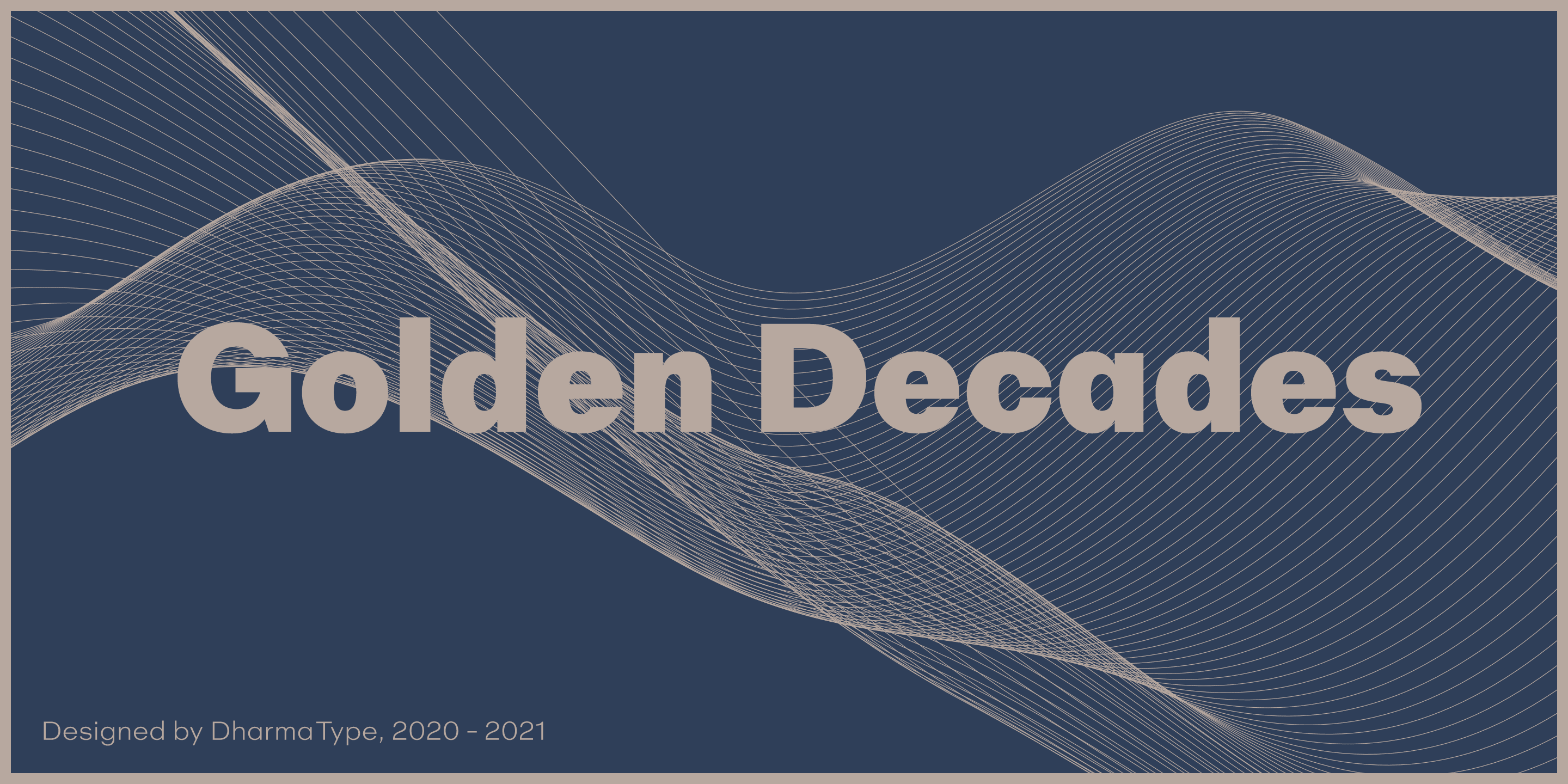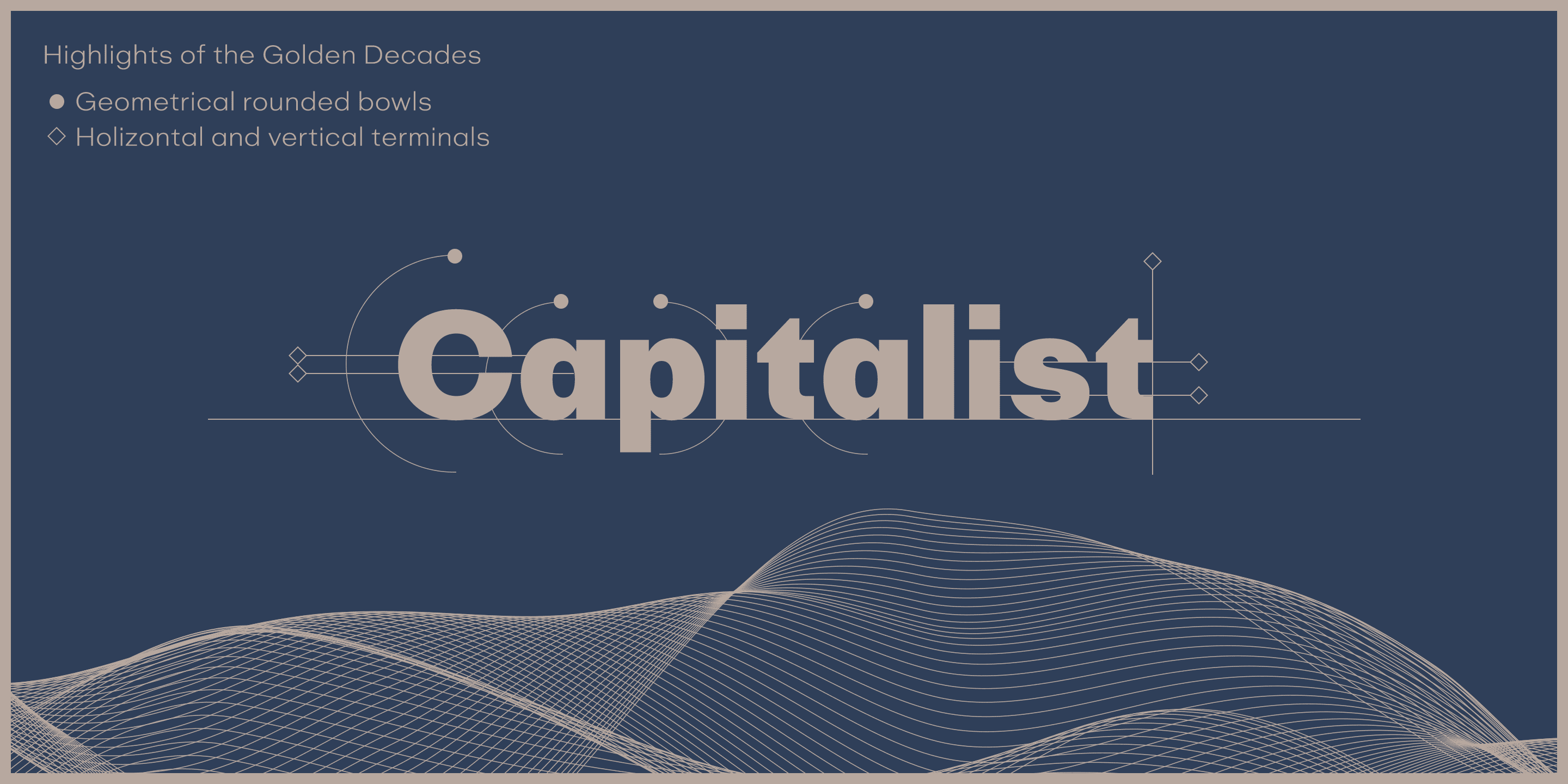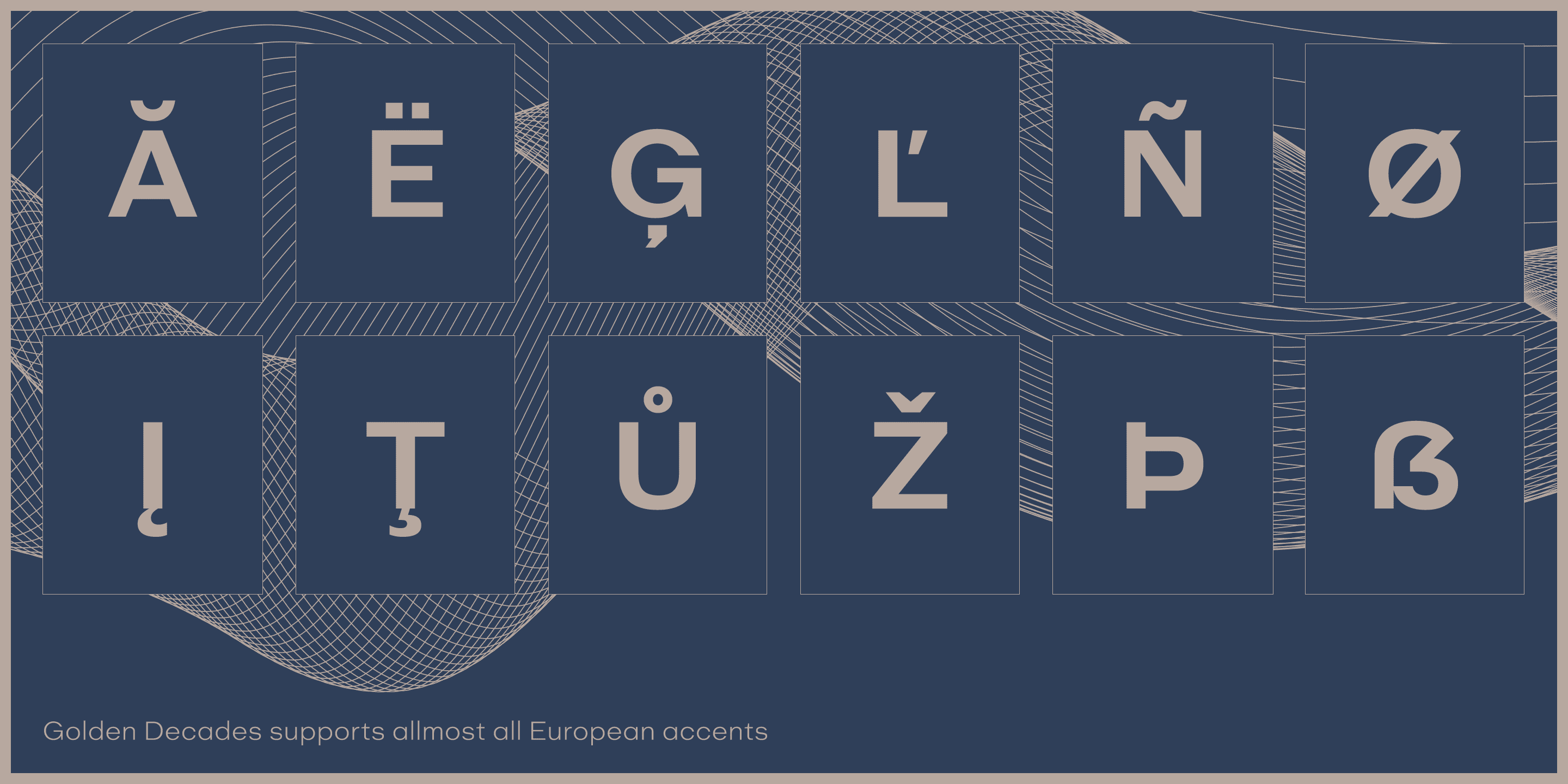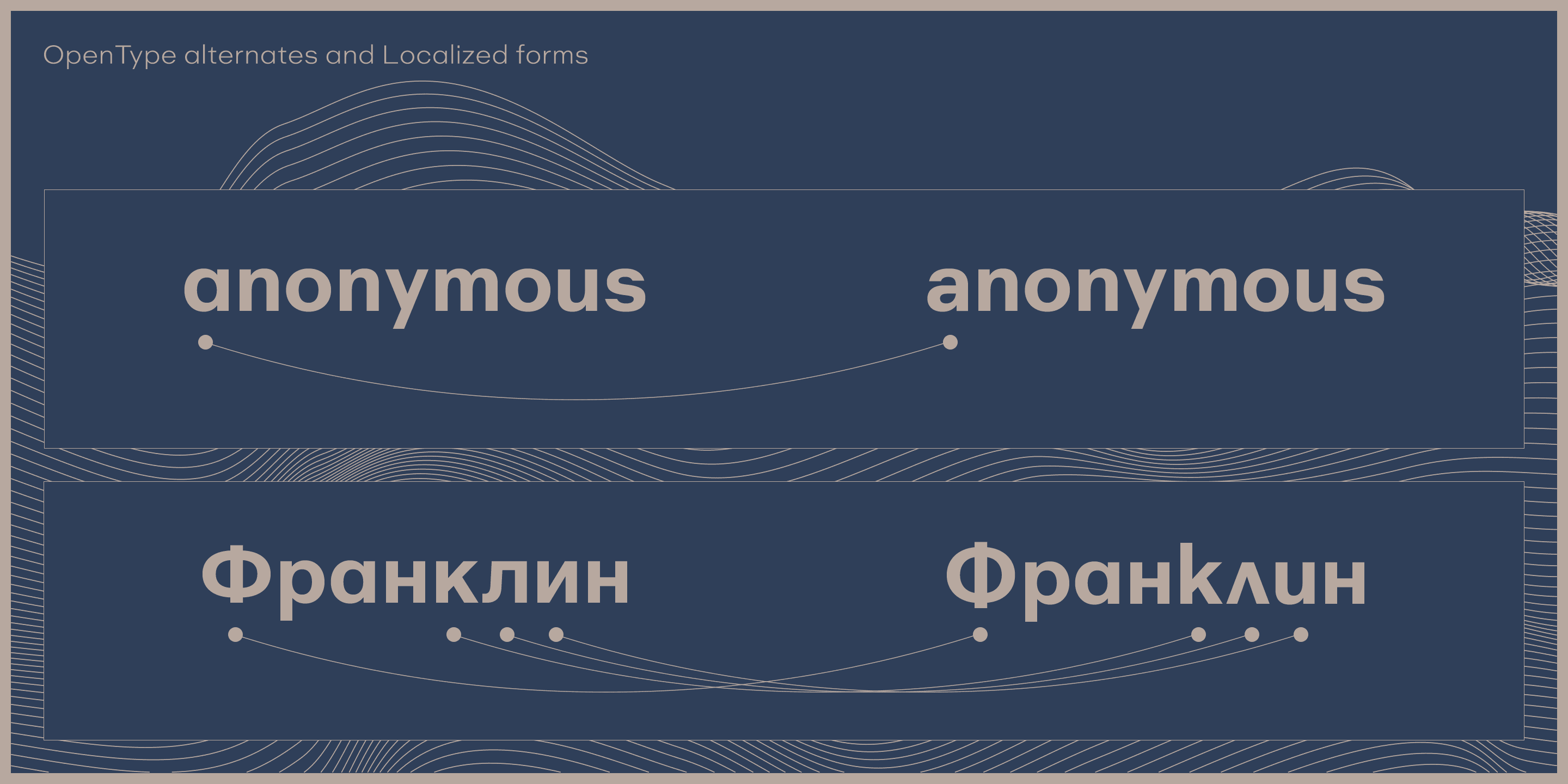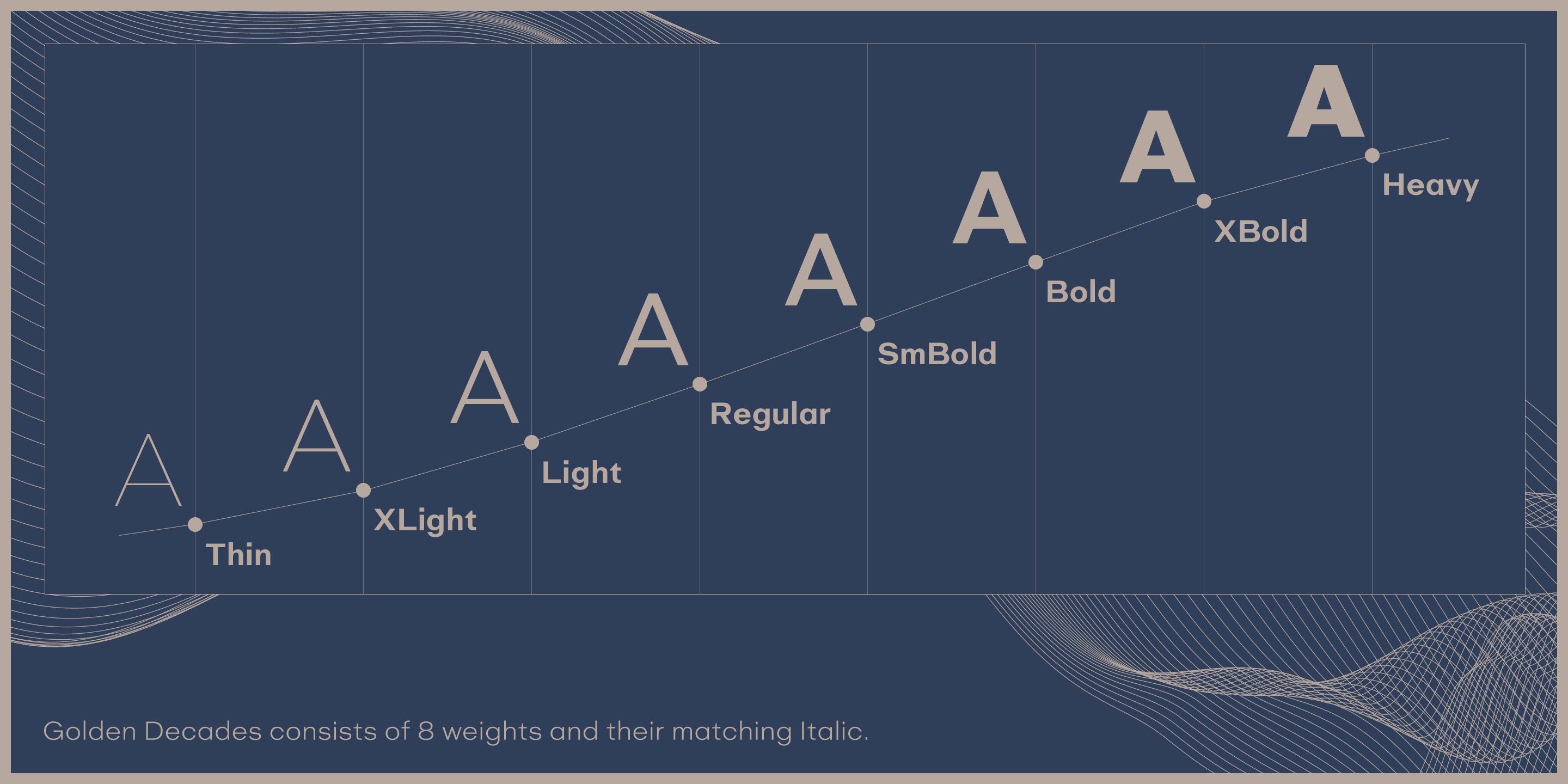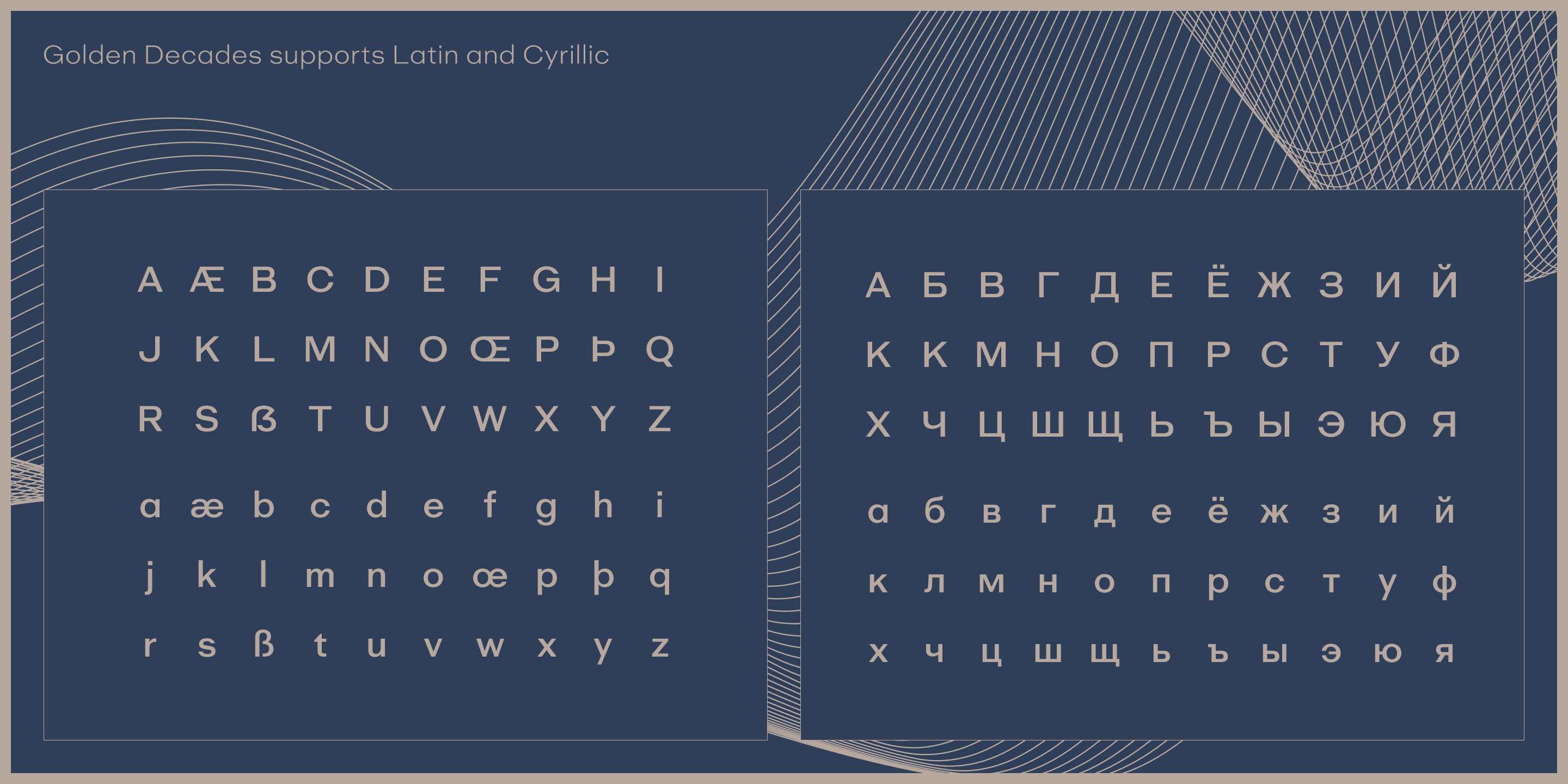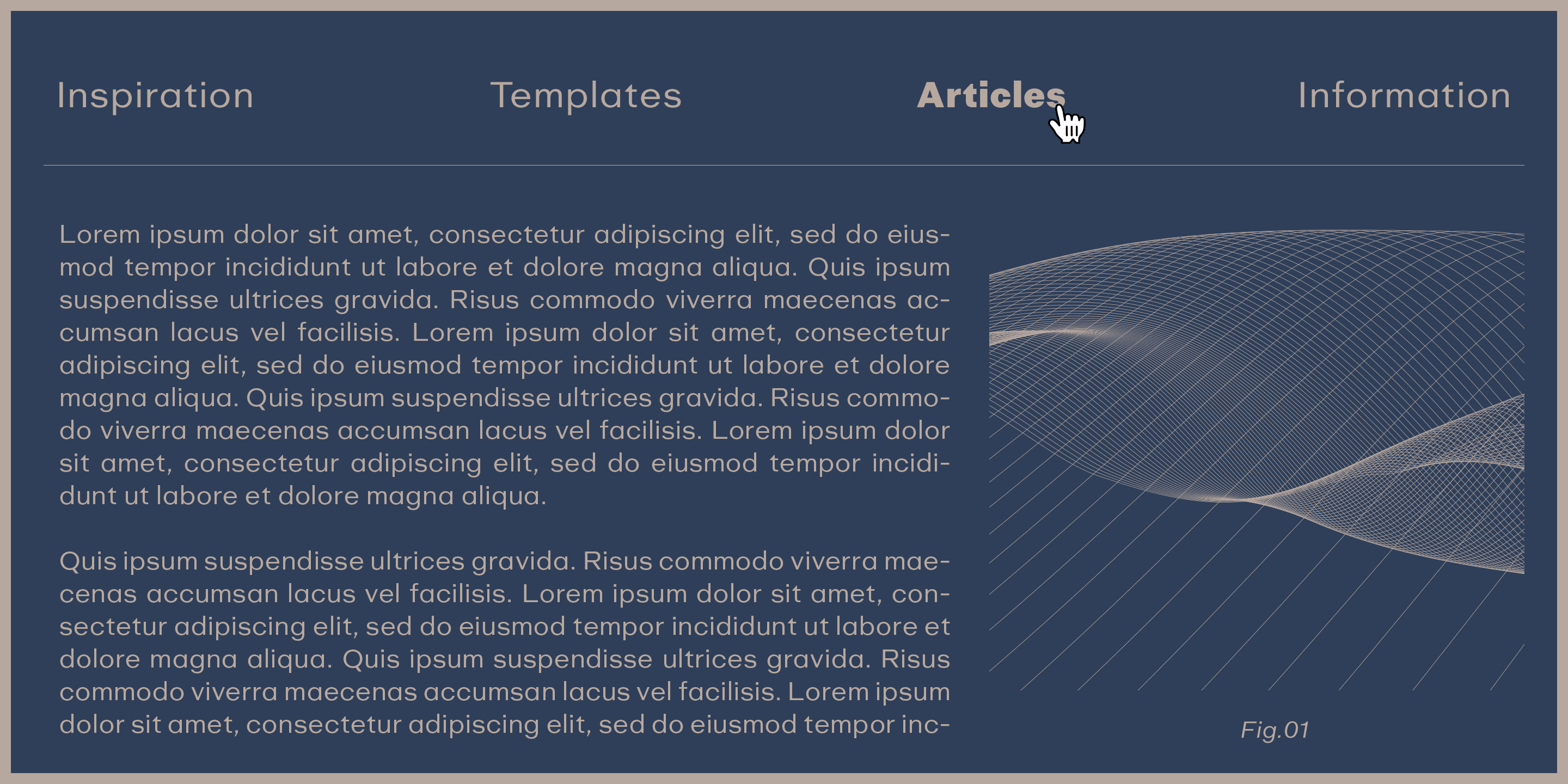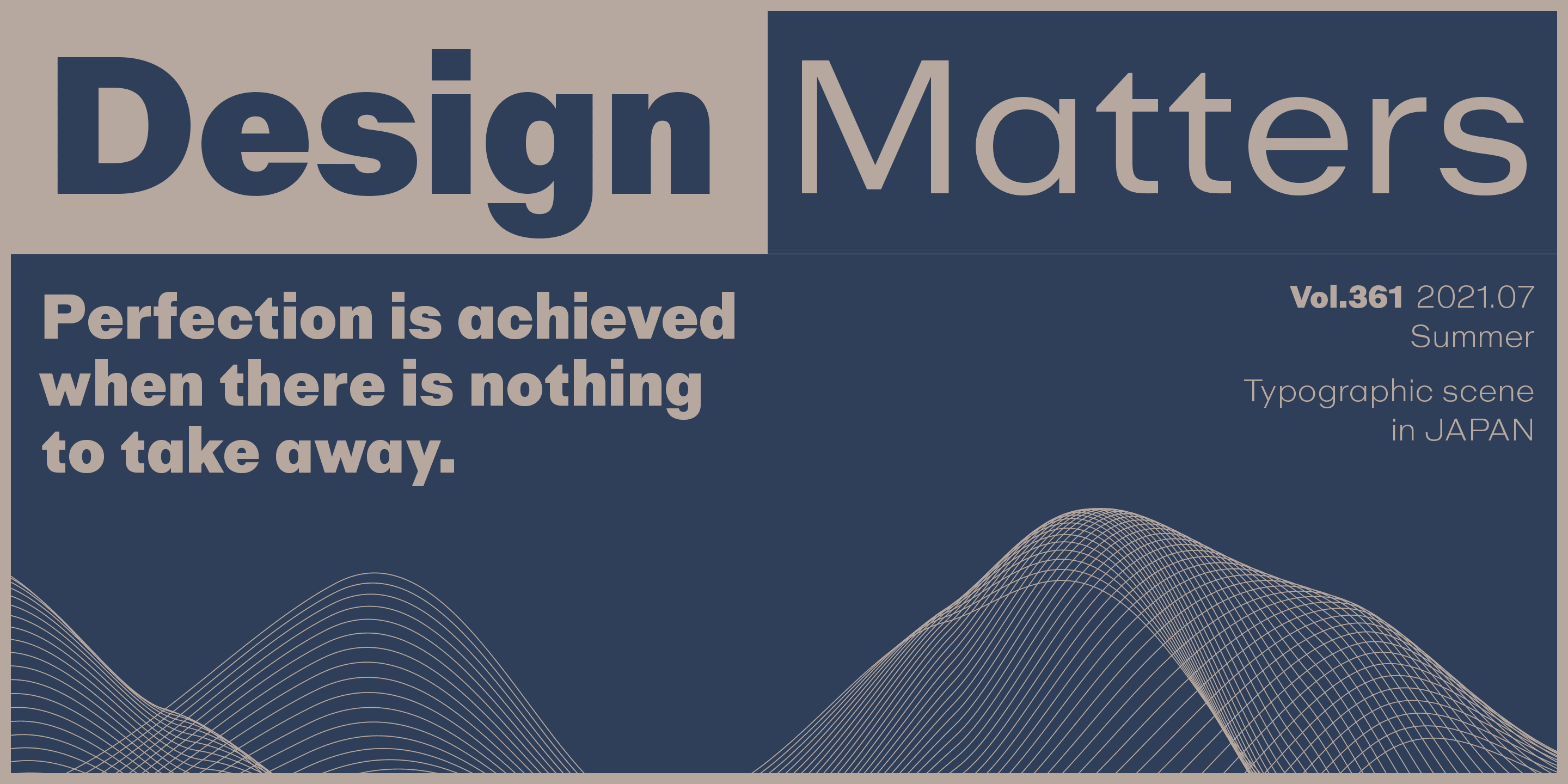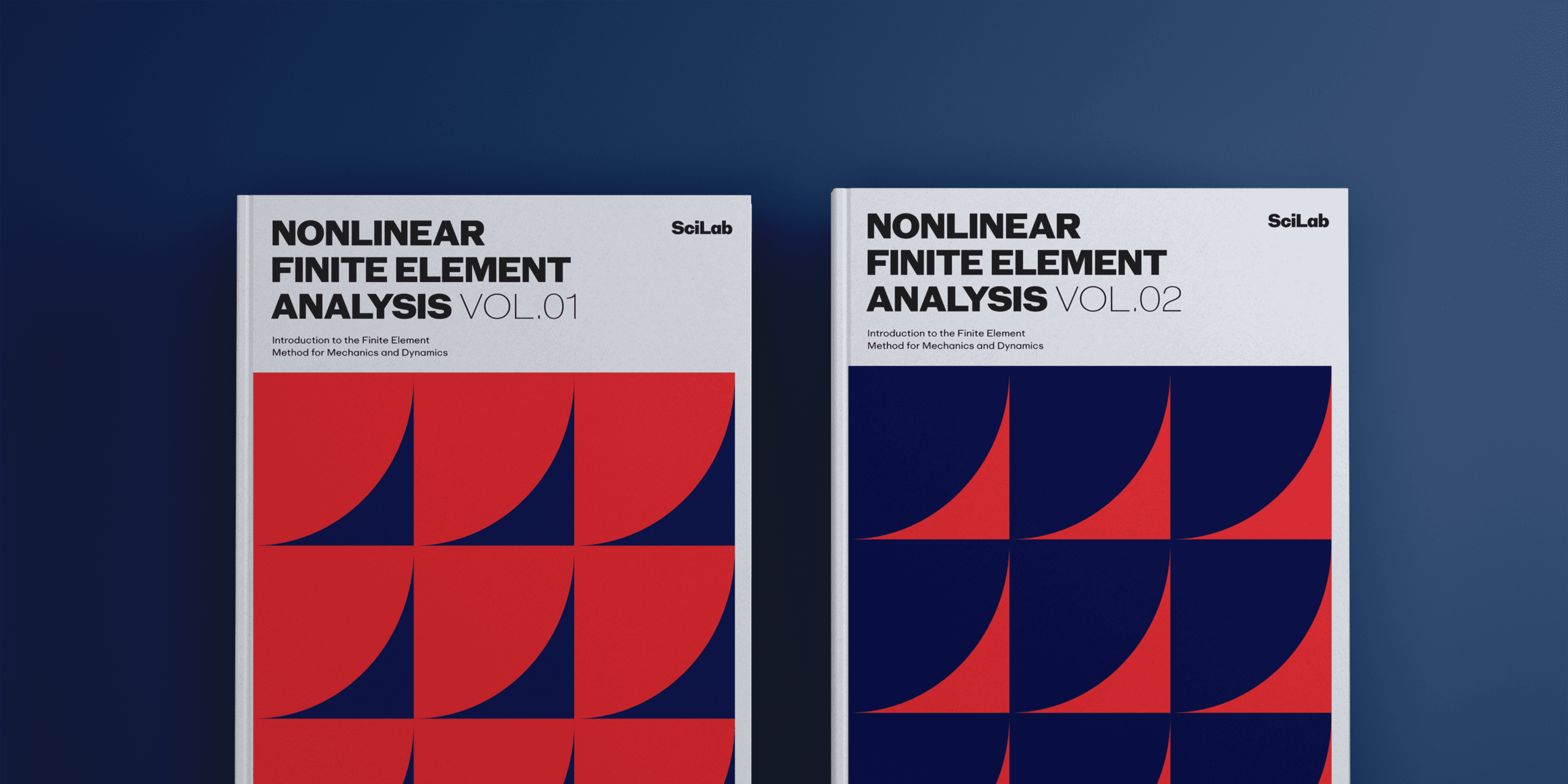
In the last ten years, type design has been confronting chaotic scene. The font market is flooded with a mixture of wheat and chaff and typography becomes increasingly complex. But one golden straight path exists. The path began from the industrial revolution, passing through Swiss style, now we walk along the path as a matter of course. It is sans-serif.
The decades from the Swiss style, namely ""less is more age"" to the contemporary basic style ""Less, but better age"", we call it golden decades. In those decades, type design met modernism.
Go back to a theory in the golden decades, we redesigned new geometric, minimal sans-serif. Less is more and better.
We added cool and calm spices to the modernism in the golden decades. As a result, letterform has a contemporary, sharp, and neutral atmosphere, and geometric rounded bowls and counters create a nice rhythm.
Golden Decades consists of 8 weights and their matching Italics for a wide range of usages.
Farther, Golden Decades is supporting international Latin languages and basic Cyrillic languages including Basic Latin, Western Europe, Central and South-Eastern Europe. Also, Golden Decades covers Mac Roman, Windows 1252, Adobe 1 to 3. This wide range of international characters expands the capability of your works. Lowercase ""a"" has OpenType stylistic alternate for advanced typography."